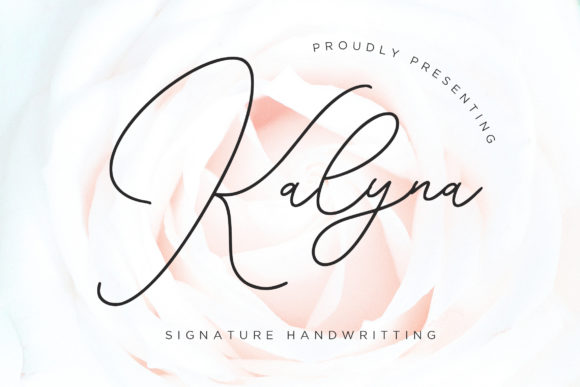
Kalyna Font
Welcome to the world of Kalyna Font, where charm and elegance meet. This exquisite script font is the brainchild of CreatypeStudio, a renowned font foundry known for their exceptional creations. Kalyna is not just a font; it's an artistic expression that captures the essence of handwritten beauty. With its unique style and captivating curves, Kalyna transforms every design into a masterpiece.
Step into a realm where your imagination takes flight. Picture a wedding invitation adorned with Kalyna's graceful strokes, enveloping your guests in a sense of timeless romance. Envision a logo that exudes sophistication, crafted with Kalyna's elegant lines, leaving an unforgettable impression on your clientele. Unleash your creativity and let Kalyna guide you through a journey of artistic exploration.
Embrace the versatility of Kalyna. Whether you're crafting a heartfelt letter, designing a captivating poster, or creating a stunning social media post, Kalyna seamlessly adapts to your vision. Its delicate strokes add a touch of whimsy to invitations, while its refined curves bring sophistication to branding materials. Kalyna is your perfect companion, transforming ordinary designs into extraordinary works of art.
Indulge in the emotional power of Kalyna. This font possesses an inherent charm that captivates audiences, evoking feelings of joy, warmth, and nostalgia. Its captivating ligatures and swashes dance across the page, creating a sense of movement and energy. Kalyna's ability to elicit emotions makes it an ideal choice for personal projects, adding a touch of heartfelt charm to your creations.
Kalyna is more than just a font; it's an investment in your creative endeavors. Its versatility, emotional impact, and unique style elevate your designs, setting them apart from the ordinary. Embrace the beauty of Kalyna and embark on a journey of artistic exploration, where your imagination knows no bounds.